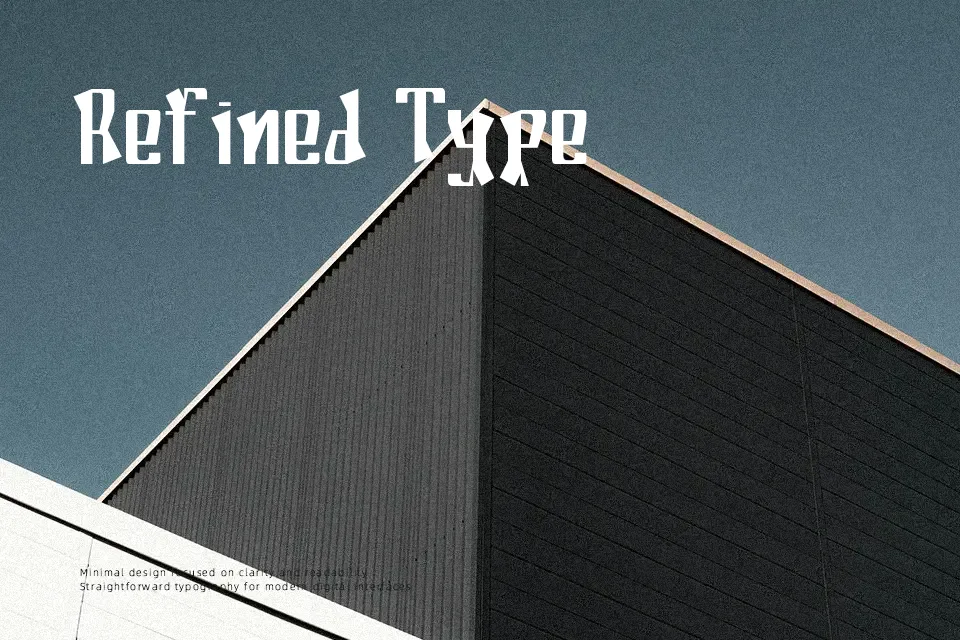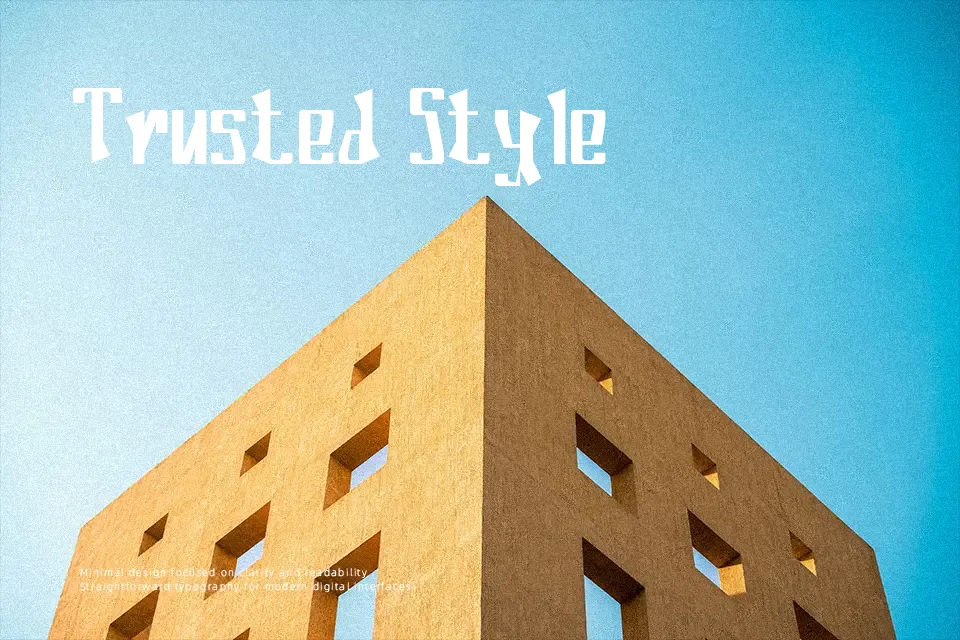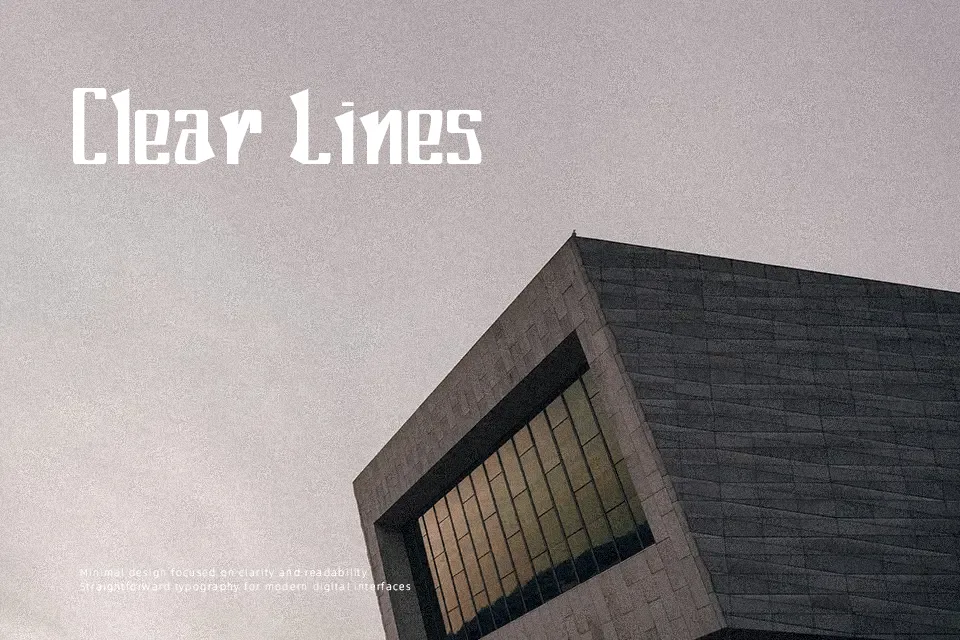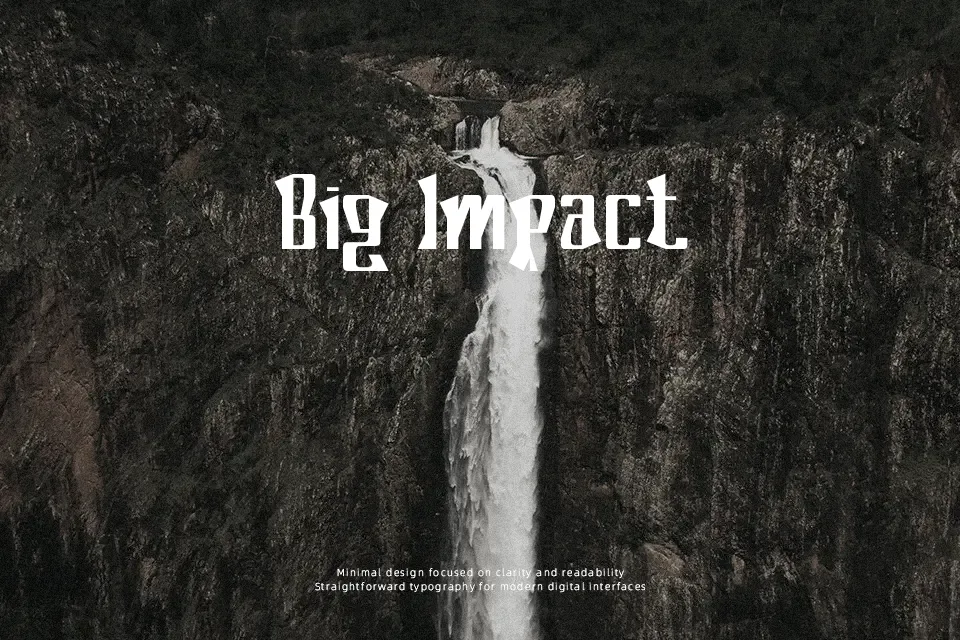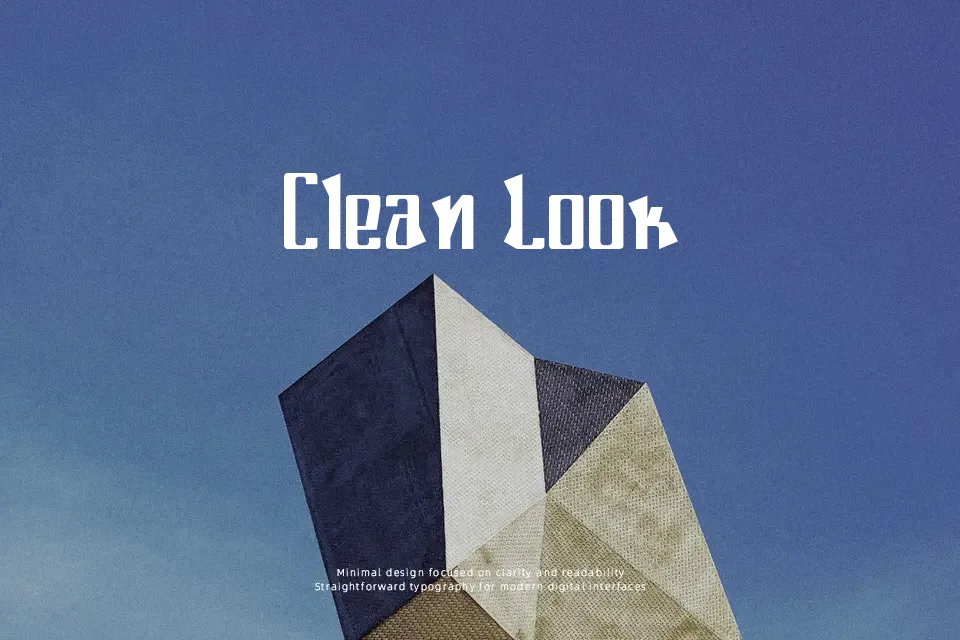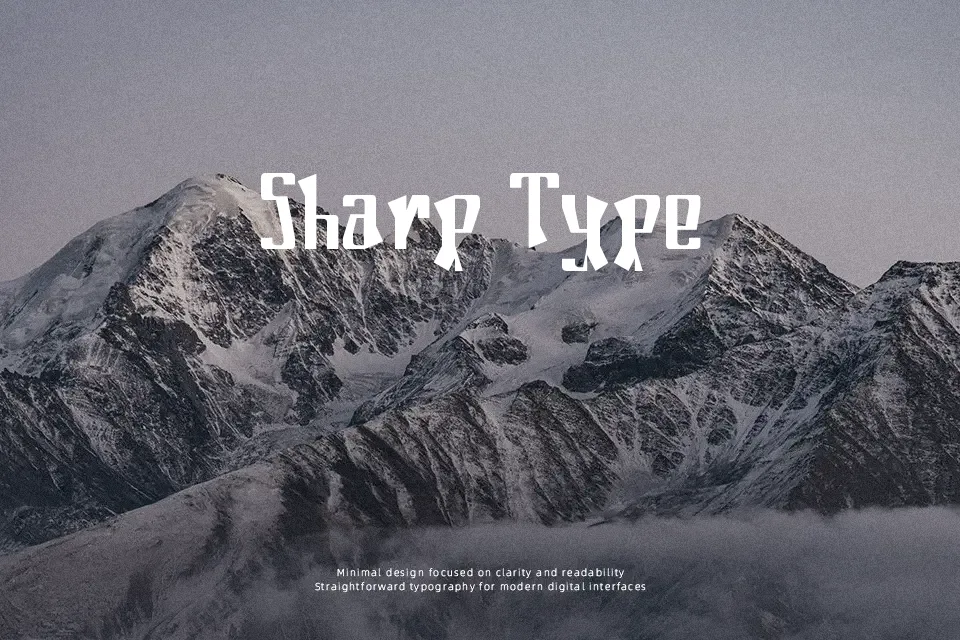
Poconeh Font
Designed by Eduardo Poconeh
Poconeh Font brings a distinctive, experimental approach to display typography through its highly structured geometric letterforms. The typeface features moderate stroke contrast and open spacing, allowing the characters to maintain a steady visual rhythm across varied layouts. Because of its academic design origins, the forms carry a creative, slightly unconventional weight that works exceptionally well for impactful poster headlines and modern branding projects. The spacing helps maintain clarity in larger headlines, ensuring the structural details remain crisp. However, the unique stroke characteristics reduce continuous reading comfort, making it less suitable for long paragraphs or dense editorial body copy.
modern poster design
creative branding layouts
editorial headlines
album cover art
dense editorial body copy
Perfect for branding, editorial, and headline, with a artistic and decorative style.